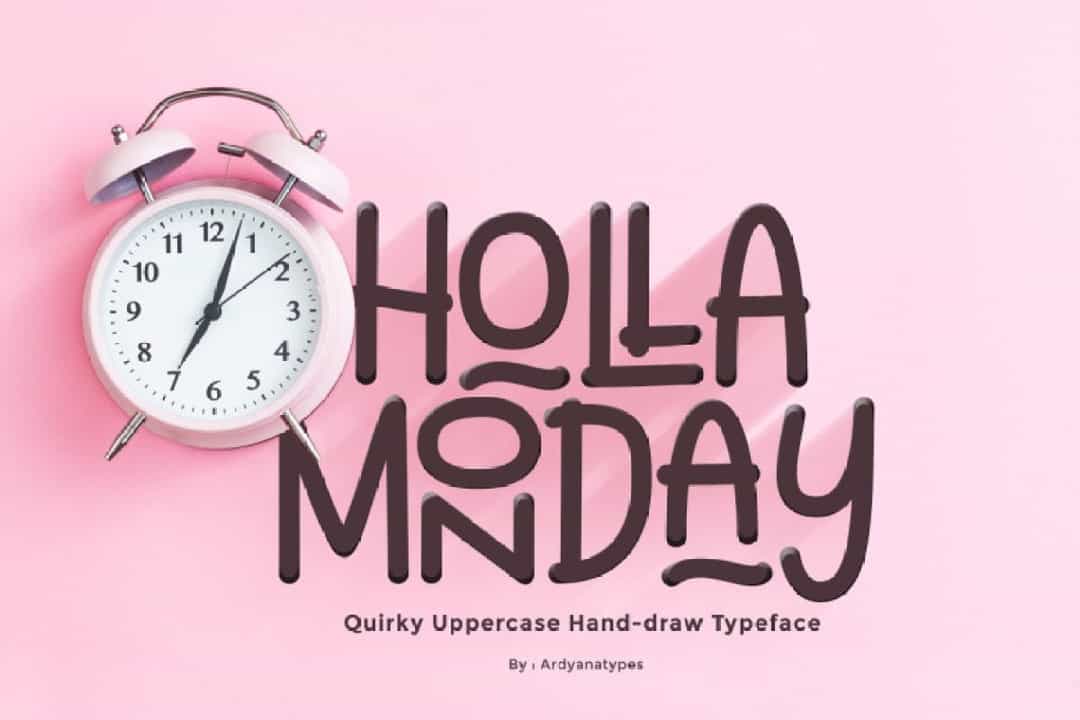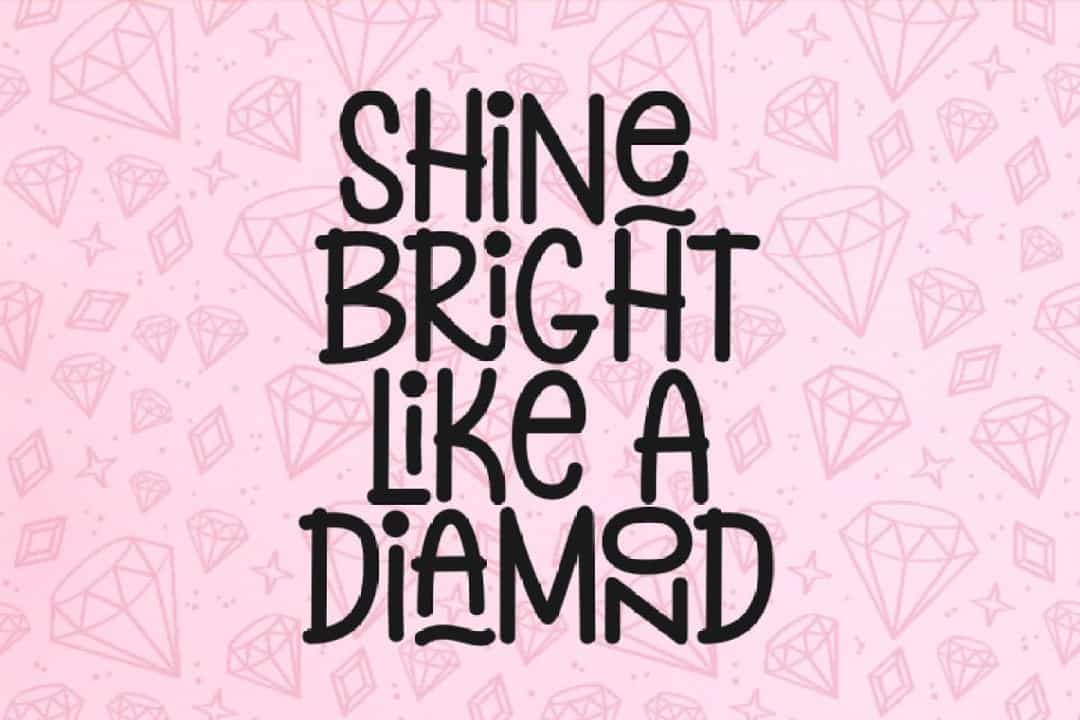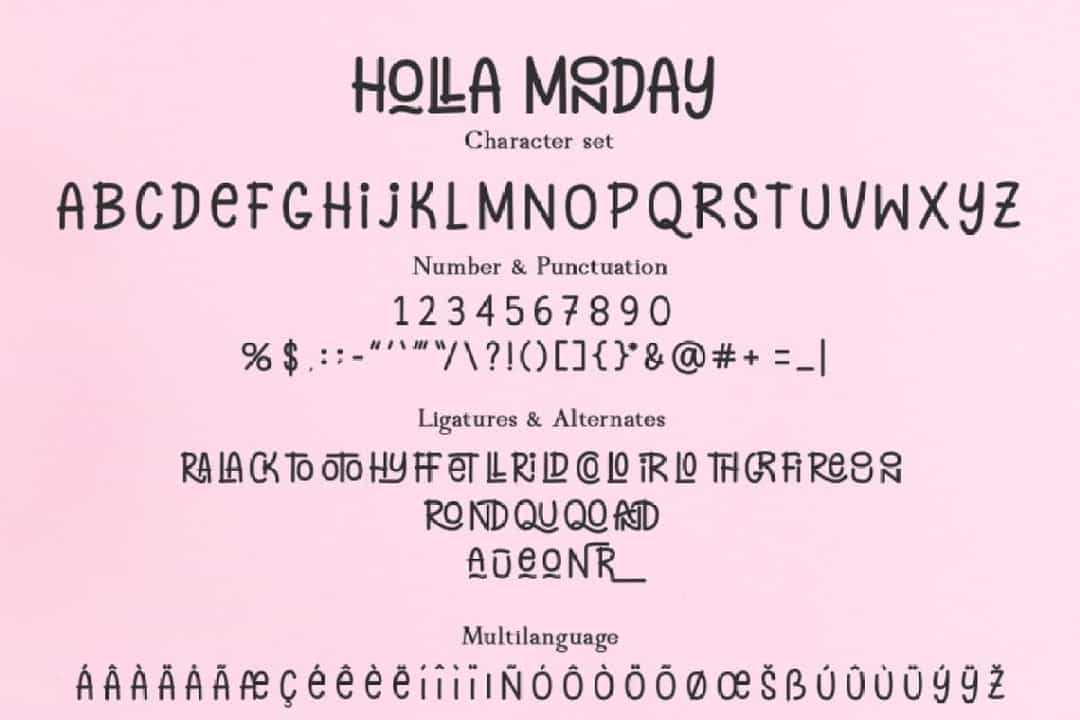
Discover Holla Monday Display Font, part of the Display Script Monoline collection—a versatile and unique font perfect for adding a personal touch to your projects. Download it for free and enjoy crafting designs with style, from invitations to social media posts. This font is available exclusively for personal use, giving you the freedom to create without limits. Unlock your creativity with Holla Monday Display Font today!
Holla Monday Font comes with an option to type open that can transform each character automatically into binder. It gives a positive impression and is easy to read and use to various design projects including posters clothes, logos and album covers, quotes books and design of products, business cards and a myriad of other designs.